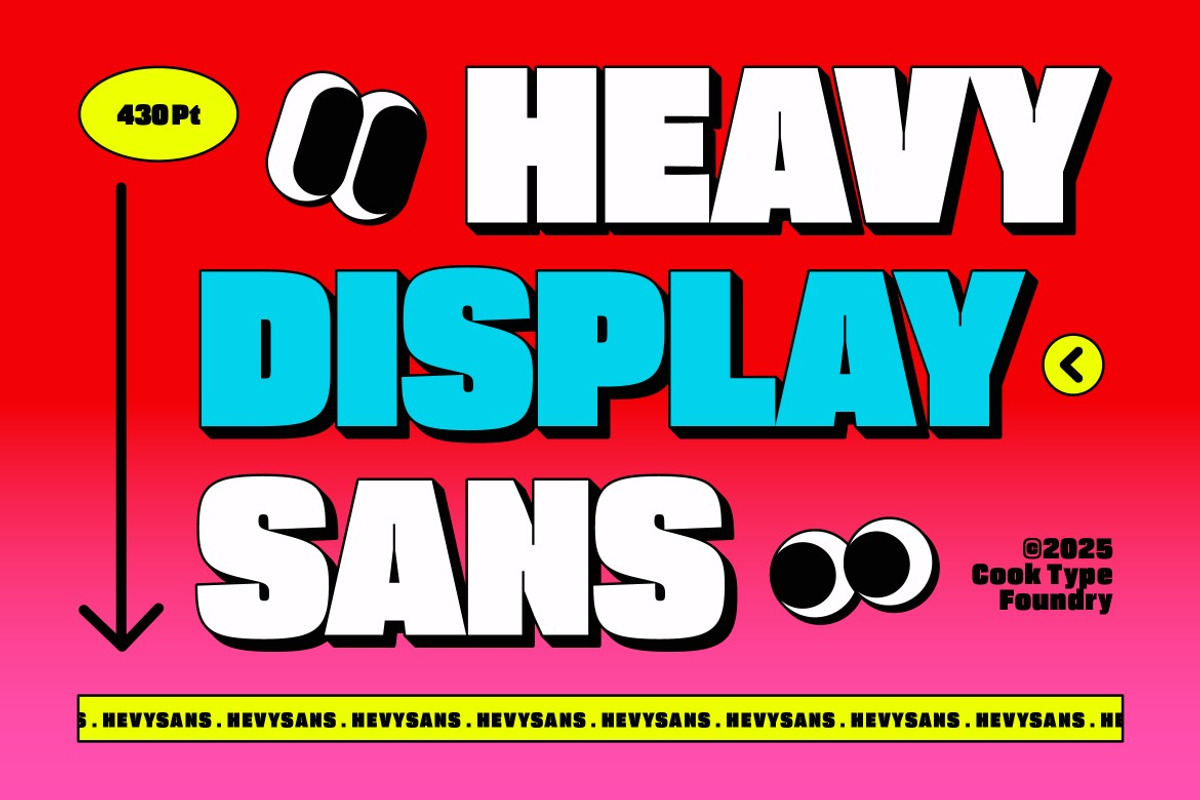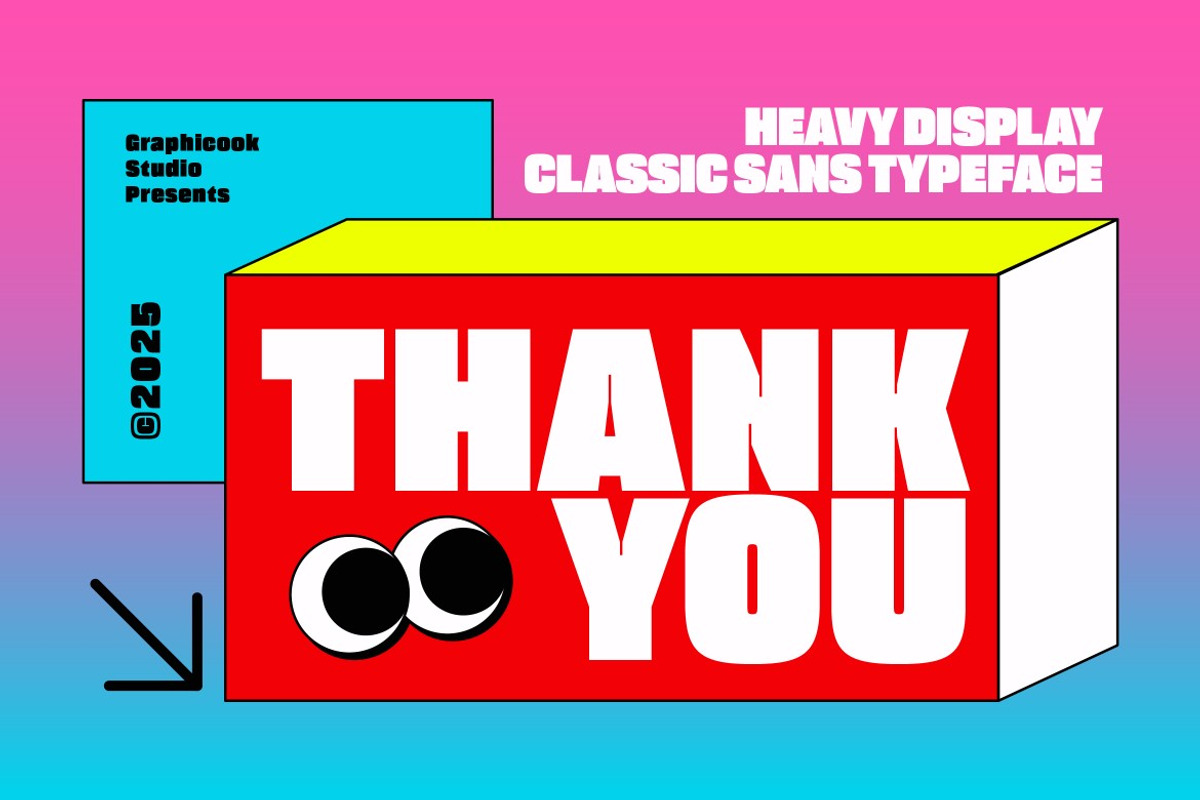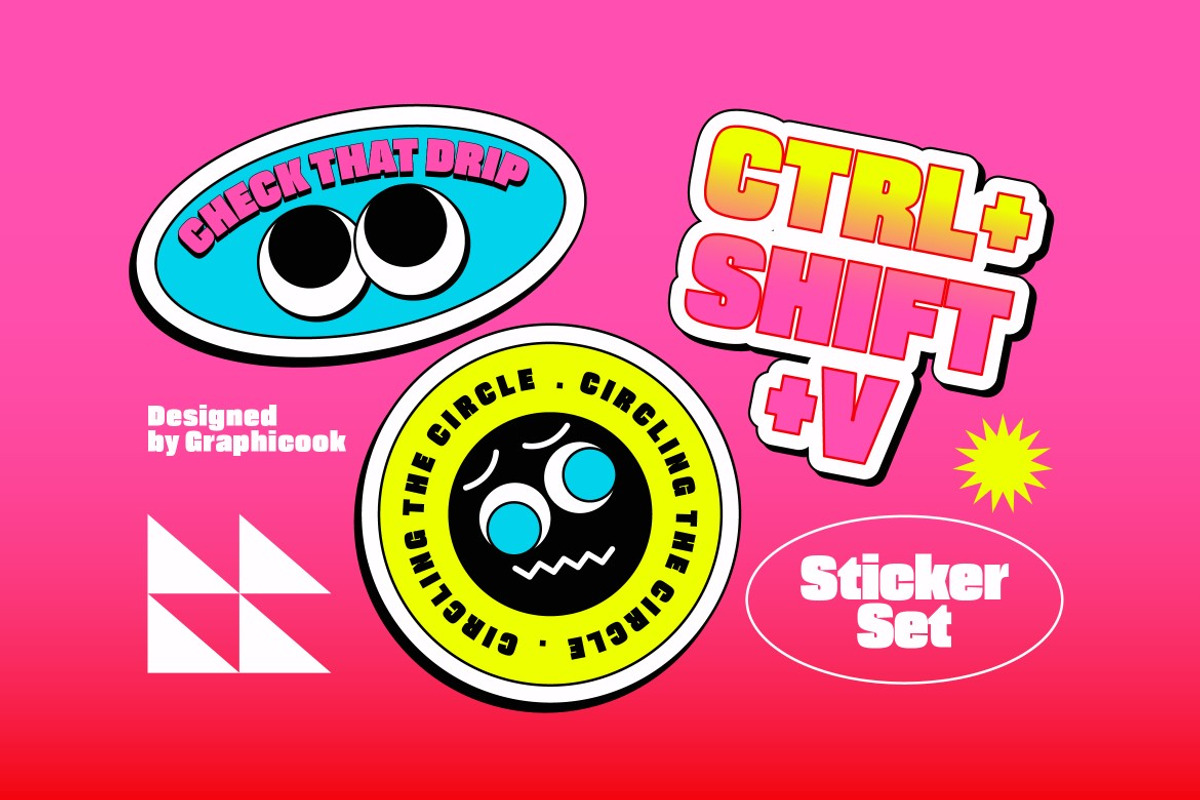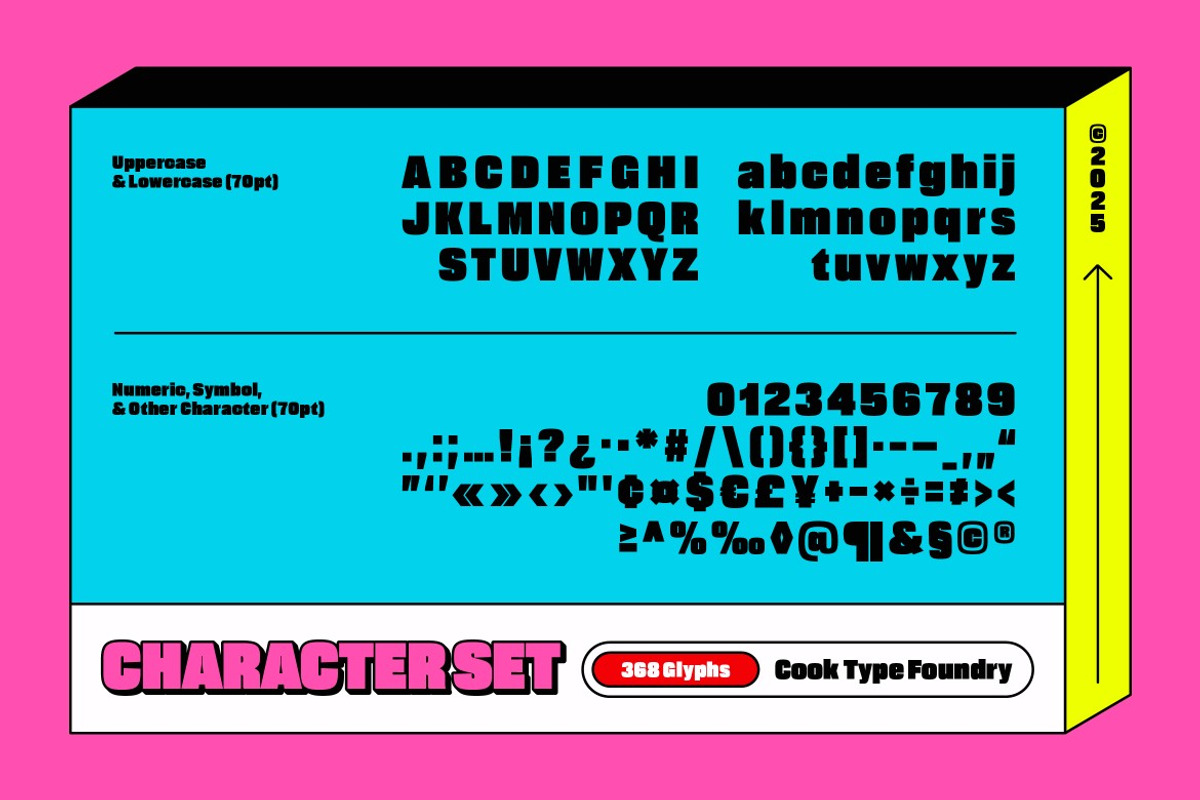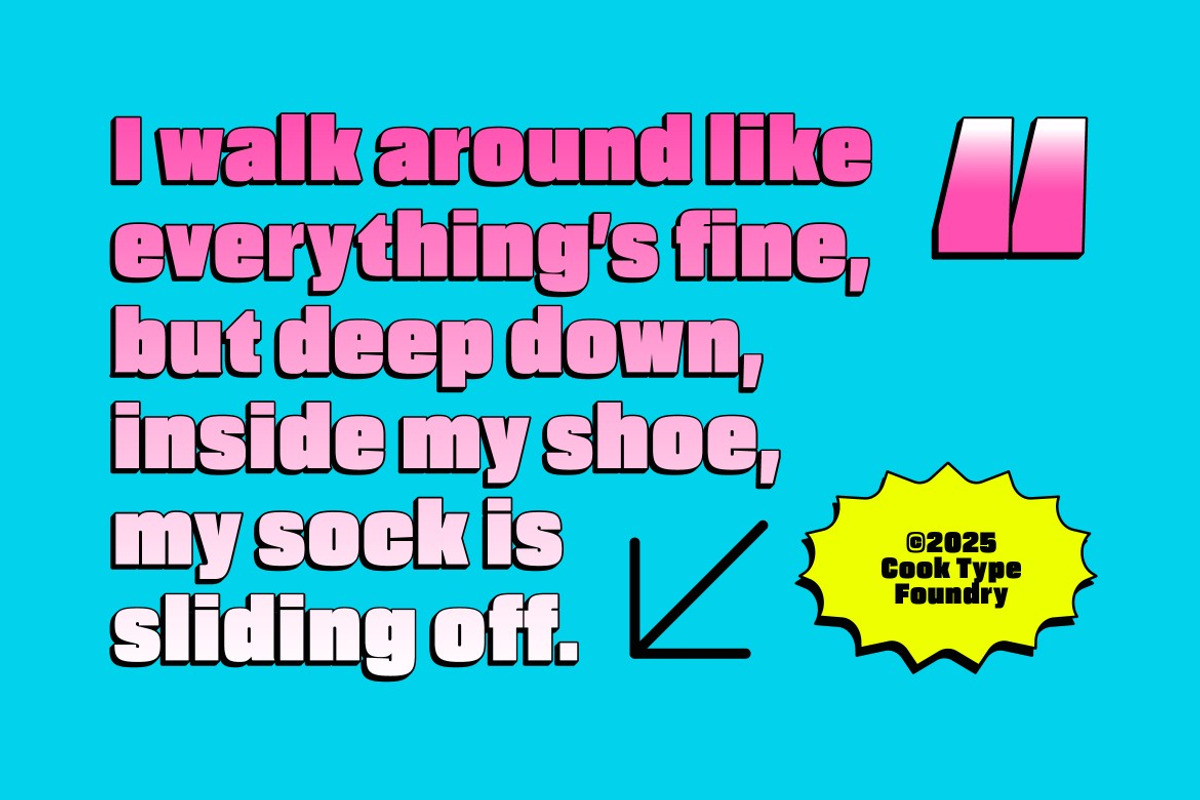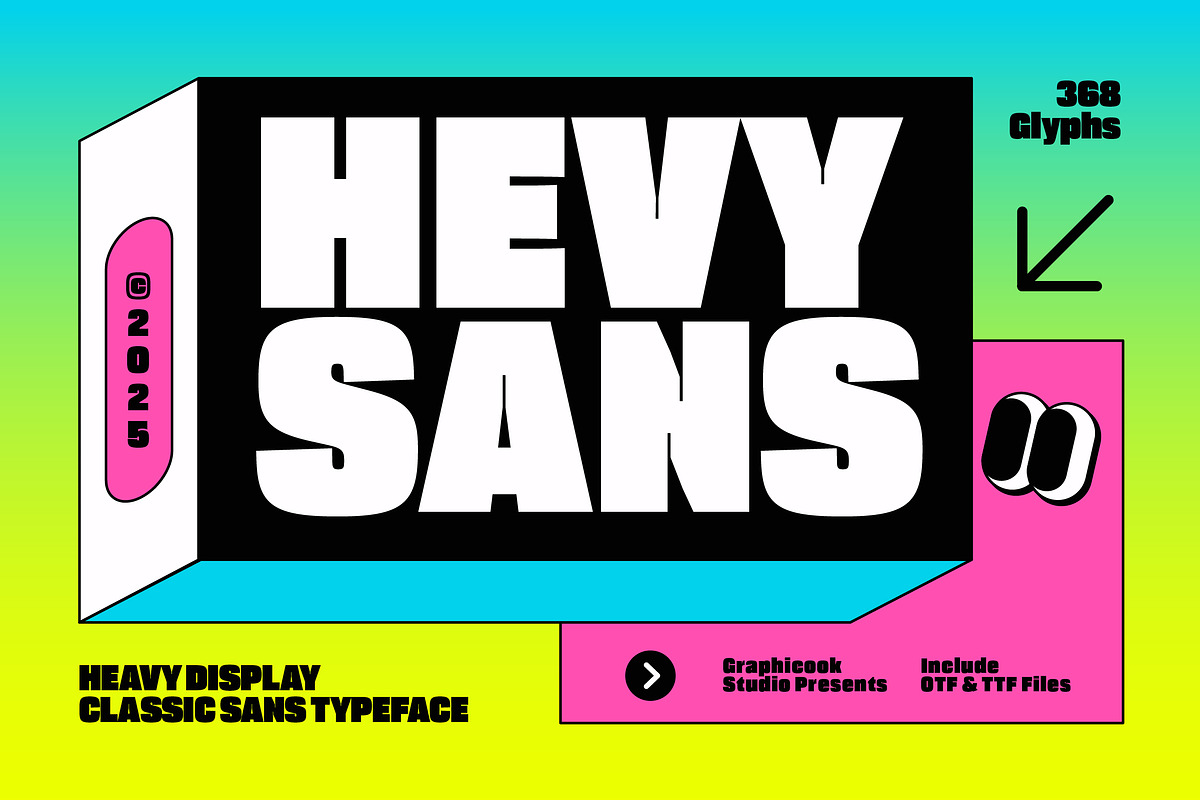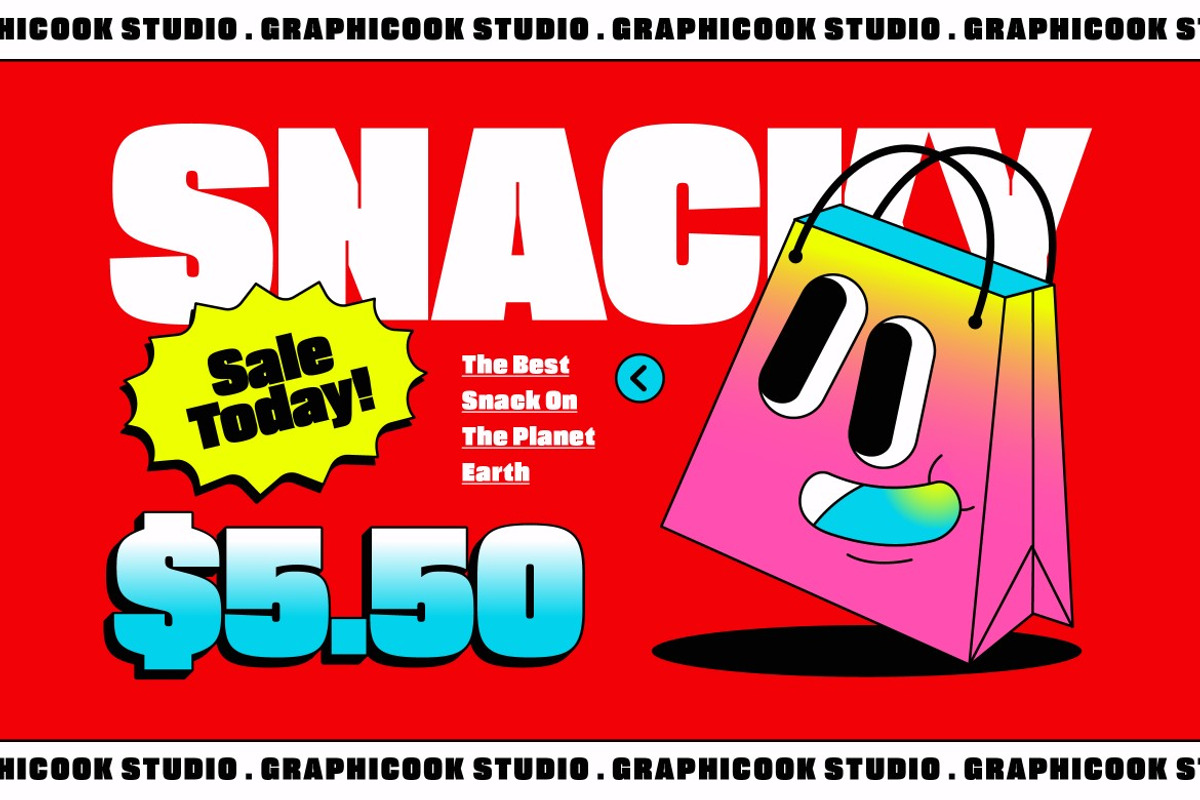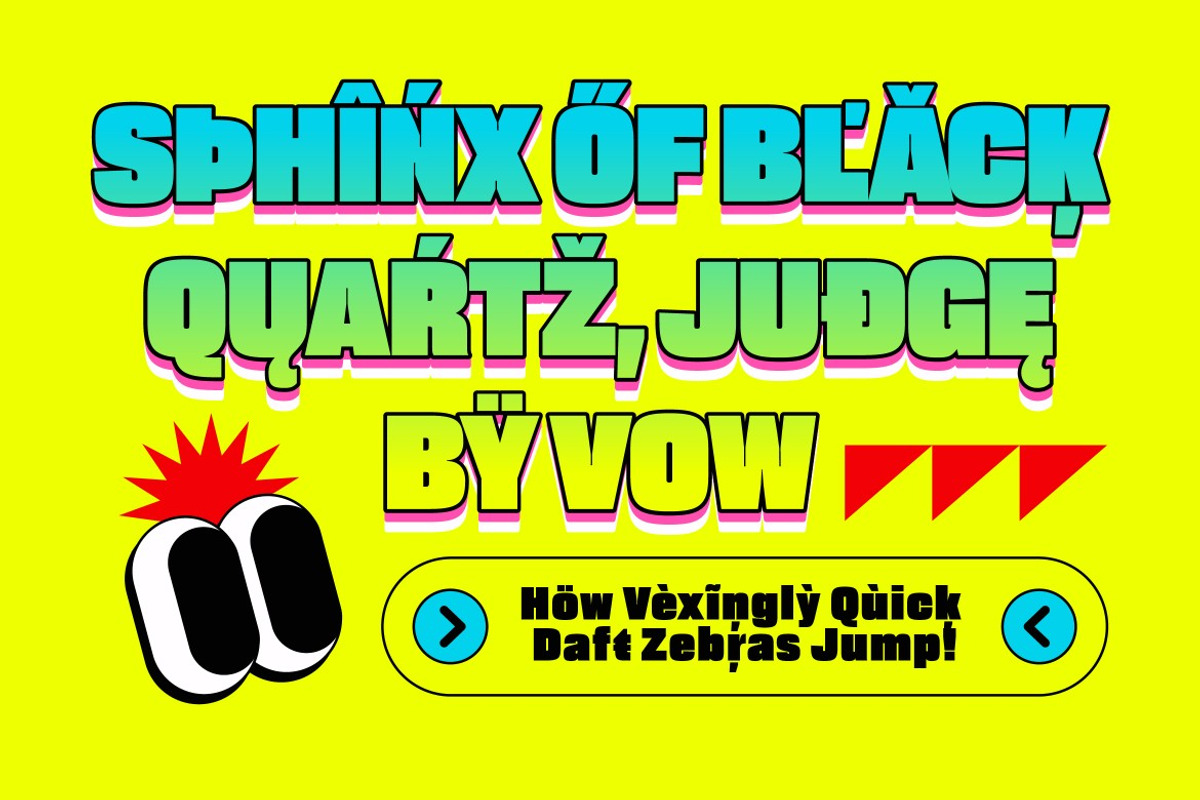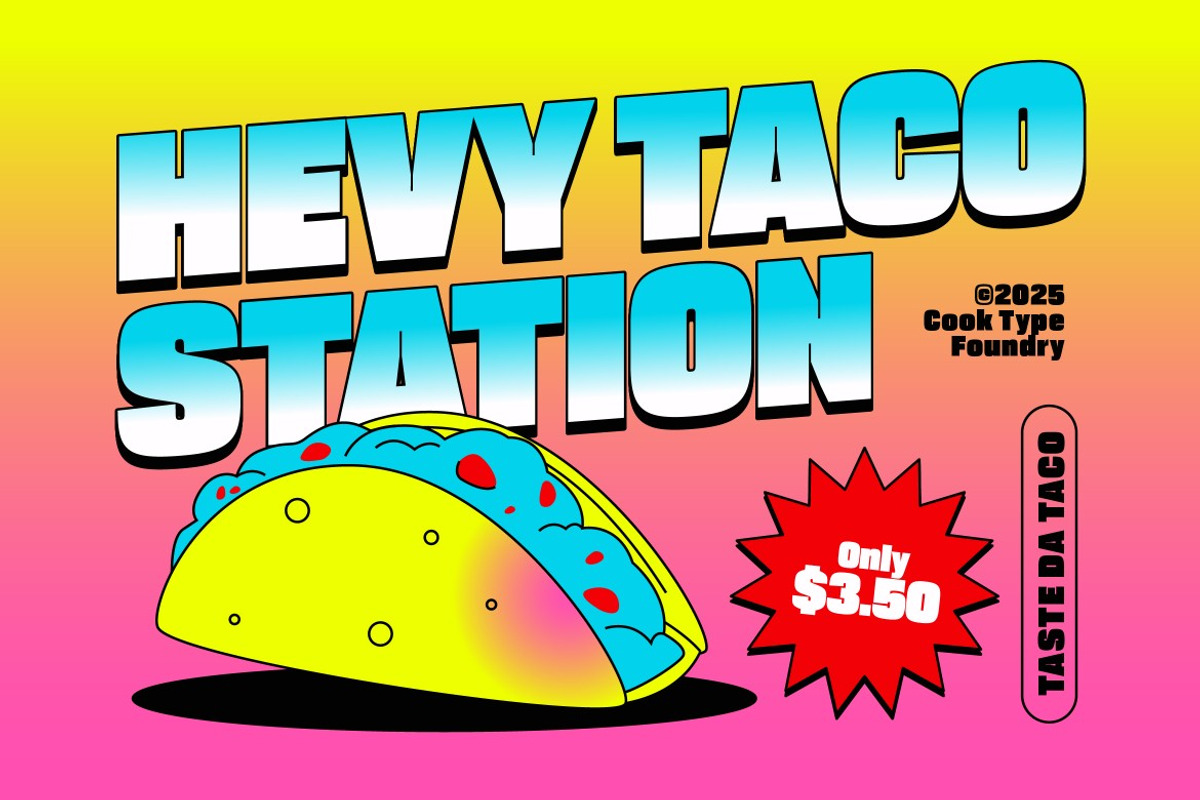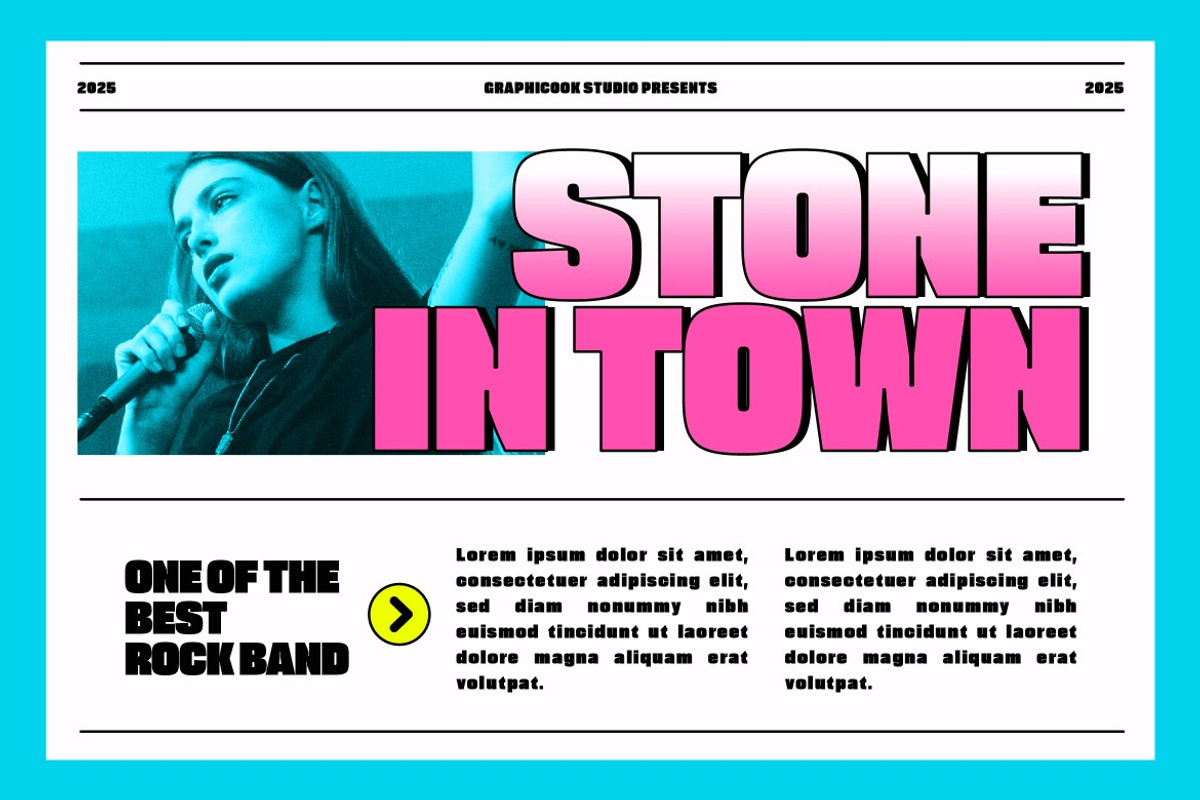
Hevysans
Hevysans is a sans-serif font with a strong, bold character that remains highly visible from a distance. It’s ideal for headlines, posters, or any design aiming to make a bold statement.
Hevysans is perfect for headlines, logotypes, magazines, packaging, quotes, movies, games, cover albums, book covers, and flyers, it's a perfect solution for creating eye-catching designs that stand out in any context.